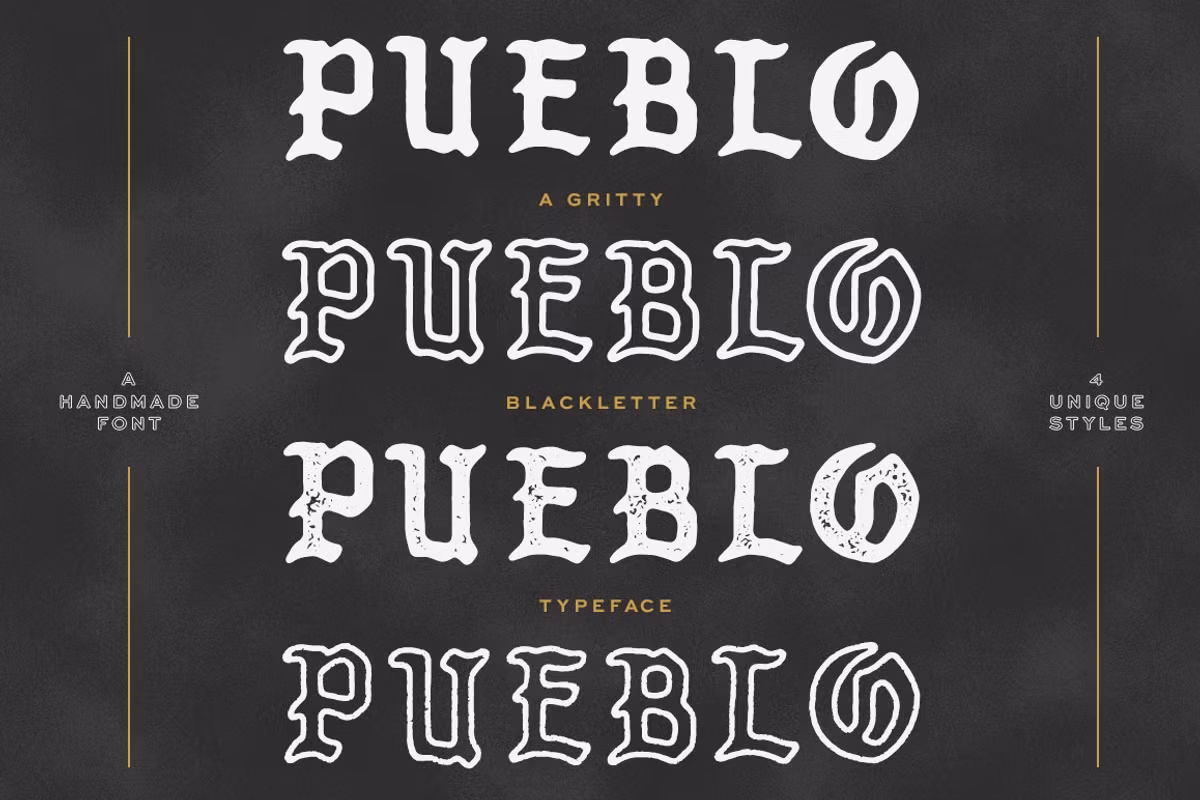
Please note that you must purchase this font for commercial use. You can download Pueblo Blackletter – 4 Styles for free, strictly for personal testing purposes only. Pueblo Blackletter is a bold and striking blackletter font family that includes four distinct styles, each designed to add a powerful, medieval-inspired look to your projects. With its sharp edges, intricate detailing, and traditional blackletter design, Pueblo Blackletter Font Free Download is perfect for creating vintage logos, event posters, branding, and any project that requires a strong, historical aesthetic.
The four styles offer flexibility, allowing you to experiment with different looks while maintaining the bold, medieval charm of the blackletter style. It includes uppercase letters, numerals, punctuation, and multilingual support, ensuring versatility for various creative projects.
Whether you’re working on a Gothic-style project, designing a vintage-inspired brand, or creating eye-catching promotional materials, Pueblo Blackletter brings strength and timeless appeal to your typography.